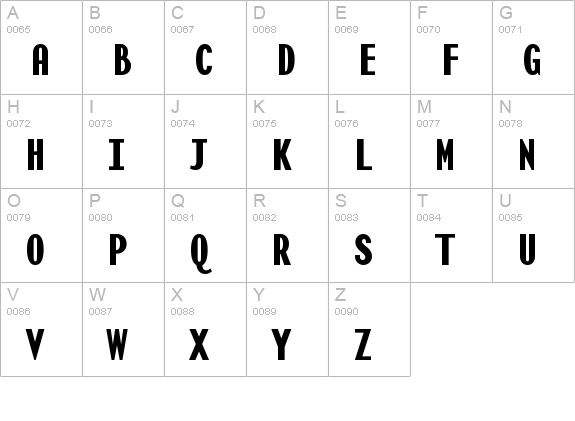
BaseMono-Narrow Bold is a strong, high-contrast, condensed-width variant in the BaseMono typeface family \xE2\x80\x94 well suited to headlines, attention-grabbing titles, and strong calls-to-action.
BaseMono-Narrow Bold font is a modern and sleek typeface designed for those who appreciate clean and minimalist design. With its bold weight and narrow proportions, this font is perfect for adding emphasis and style to your projects. The sharp, precise lines of BaseMono-Narrow Bold exude a sense of professionalism and sophistication. What's even better is that BaseMono-Narrow Bold is available for free download at FontsMarket.com. This means you can easily access this stunning font without any cost, making it a valuable addition to your font library. Whether you're working on a website, branding materials, or any other design project, BaseMono-Narrow Bold will help you achieve a polished and contemporary look. Download it now and elevate your design game with this exceptional typeface.